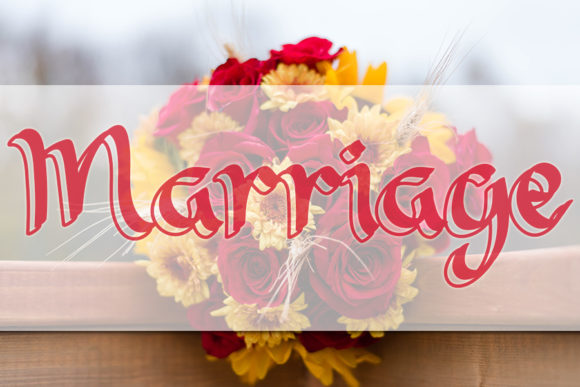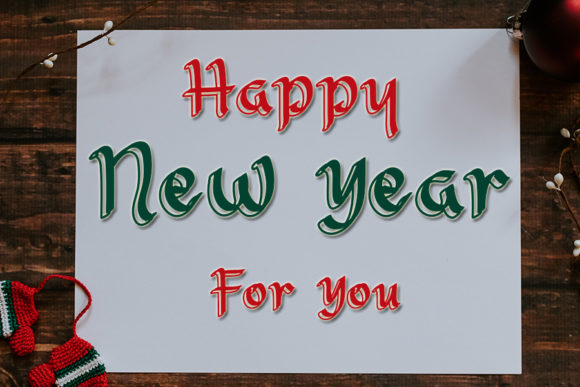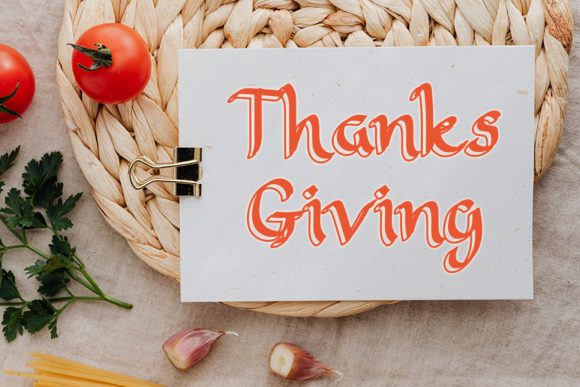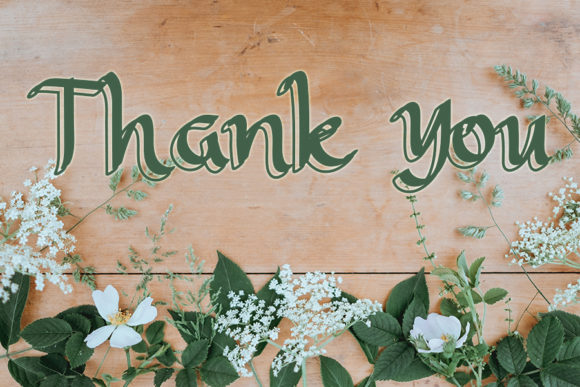
Introduction to New Year Font
As you sit down to start a new creative project, the blank page stares back at you, waiting for the spark of inspiration. You’ve got an idea, but the right font can make all the difference in bringing it to life. This is where the New Year Font comes in – a flowing display font that’s as versatile as it is charming.
With its casual, down-to-earth feel, the New Year Font is the perfect design resource for any project. Whether you’re working on a busy background or a standalone headline, this font is sure to shine. And the best part? It’s available for free download, making it an invaluable addition to your design toolkit.
New Year Font
- High-quality design resource perfect for creative projects and celebrations.
- Features a transparent background, allowing for seamless integration with any design or background.
- Includes multiple styles and weights for added versatility and customization options.
Honest Review: New Year Font
I recently had the chance to work with the New Year Font and I must say, it’s a great addition to any design project. The font is perfect for creating eye-catching graphics and signs for the New Year celebrations. ✨
One of the things I love about this font is its high quality design, making it perfect for both digital and print projects. It’s also available for free download, which is a huge plus for designers who are on a budget. Another great feature is the transparent background, which allows for easy layering and composition.
Here are some of the features that I found particularly useful:
- Perfect for digital and print projects
- Great for New Year celebrations and creative projects
⚠️ However, I did find that the font is a bit limited in terms of customizability. It’s available in a limited number of styles and weights, which may not be suitable for all design projects.
Overall, I’m really impressed with the New Year Font and I would definitely recommend it to anyone looking for a high-quality design resource. It’s perfect for adding a touch of elegance and sophistication to any creative project.
Tips for Getting the Most Out of New Year Font
Use high-quality images and design elements to complement the New Year Font. Experiment with different colors and layouts to find the perfect combination. Don’t be afraid to try new things and make mistakes – they can often lead to unique and creative solutions.
Common Use Cases for New Year Font
The New Year Font is ideal for creating designs related to the holiday season, such as greeting cards, invitations, and social media posts. You can also use it in business projects, such as marketing materials and presentations, to add a festive touch.